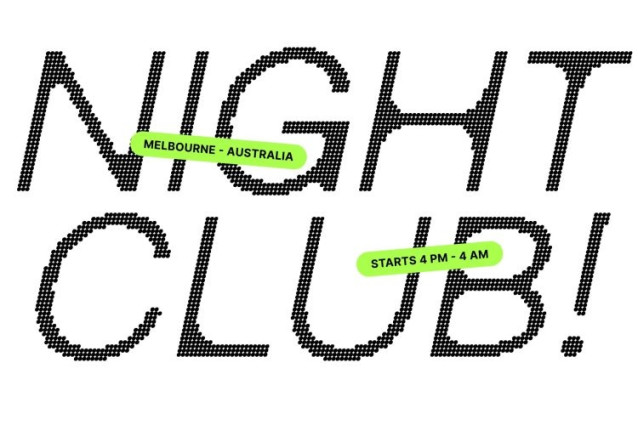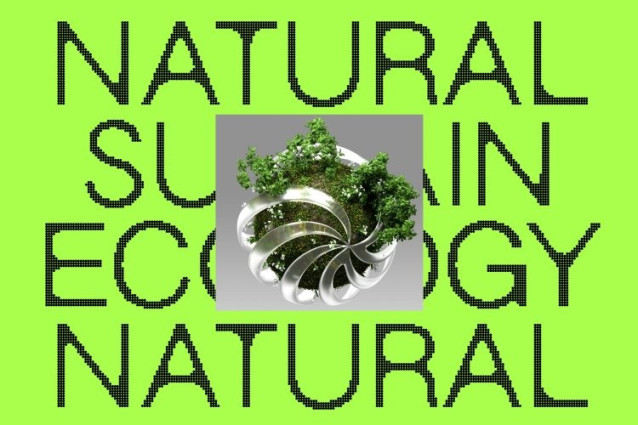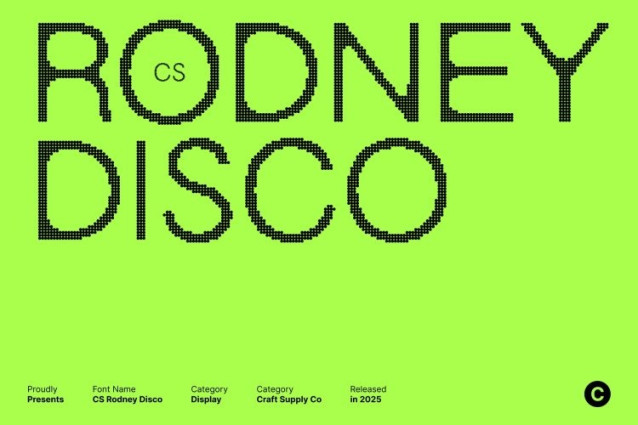
CS Rodney Disco Font
CS Rodney Disco Font This is a sleek geometric sans serif font crafted to deliver clarity, precision, and a distinctly modern edge. Its clean lines and balanced structure create a professional look that stands out effortlessly in contemporary design.
Disco Sparkle Effect for Radiant Visual Impact
What sets this font apart is its signature disco sparkle effect. This shimmering detail adds a layer of glamour and excitement without overpowering the font’s professional foundation. The subtle gleam enhances titles, logos, and editorial headers, giving them a luminous quality that instantly attracts attention. It’s a perfect blend of sophistication and flair, making every word look ready to shine.
Versatile for Branding, Editorials, and Visual Identity
Whether you are developing a clean brand identity, crafting a modern magazine layout, or designing promotional materials, adapts seamlessly. Its geometric consistency supports strong readability, while the sparkle detail injects personality.
Perfect for Designers Seeking Modern Elegance with a Twist
This font was made for designers who want more than just a standard sans serif. Its combination of geometric craftsmanship and glamorous accents gives every project a memorable, elevated presence. Use it for logos, editorial spreads, posters, packaging, or digital branding, and let your design glow with confidence and sophistication.